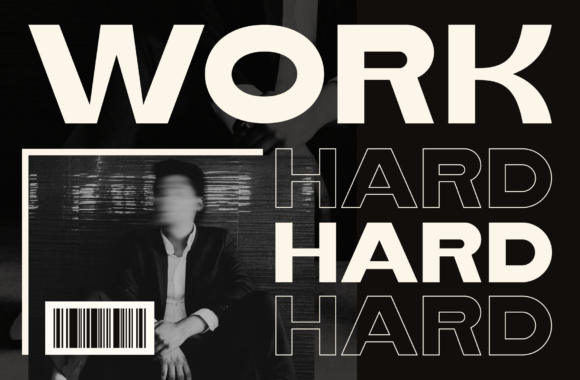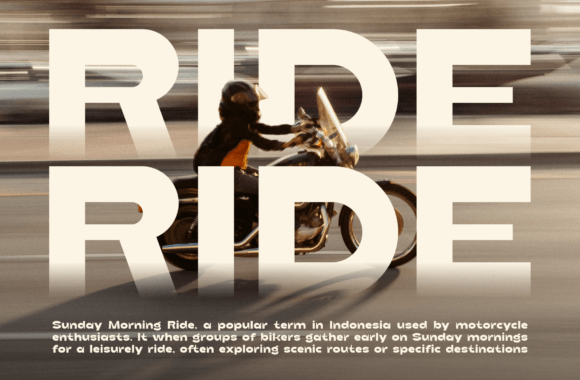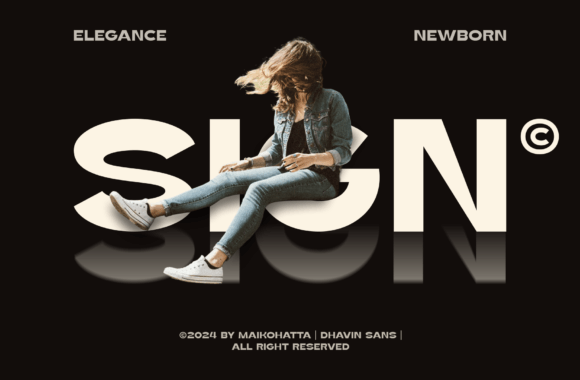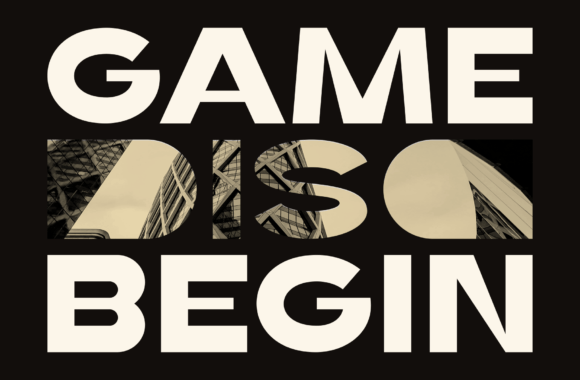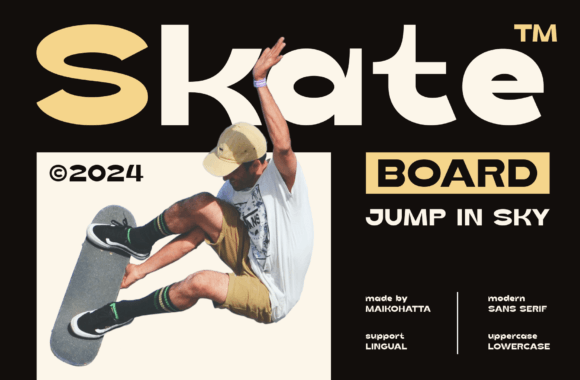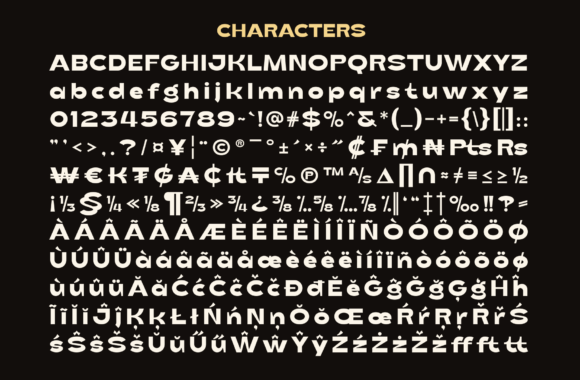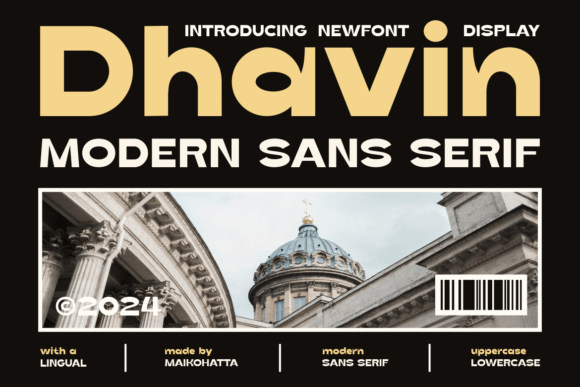
Introducing Dhavin Font: The Ultimate Modern Sans Serif for Graphic Design and Typography
In the world of graphic design and modern typography, the right font can make all the difference. A well-crafted font can elevate your design, convey your message with clarity, and leave a lasting impression on your audience. We’re excited to introduce our new product, Dhavin Font – a modern sans serif font that’s designed to provide a clean, professional, and contemporary look. In this article, we’ll explore the features, benefits, and uses of Dhavin Font, and why it’s a must-have for designers and crafters.
What is Dhavin Font?
Dhavin Font is a modern sans serif font that’s designed to be highly flexible and versatile. Its clean lines, simple shapes, and minimalist aesthetic make it an excellent choice for a wide range of design contexts, from digital media to print materials. Whether you’re designing a logo, brochure, website, or social media post, Dhavin Font is the perfect choice for creating a professional and contemporary look.
Key Features of Dhavin Font
So, what makes Dhavin Font stand out from other fonts? Here are some of its key features:
• Clean and Simple Design: Dhavin Font features a clean and simple design that’s easy to read and understand. Its minimalist aesthetic makes it perfect for designs that require a professional and contemporary look.
• Highly Legible: Dhavin Font is designed to be highly legible, even at small font sizes. This makes it ideal for use in body text, captions, and other applications where readability is crucial.
• Flexible and Versatile: Dhavin Font is a highly flexible font that can be used in a variety of design contexts, from digital media to print materials.
• Modern and Contemporary: Dhavin Font has a modern and contemporary aesthetic that’s perfect for designs that require a fresh and up-to-date look.
Benefits of Using Dhavin Font
So, why should you choose Dhavin Font for your design projects? Here are some of the benefits of using Dhavin Font:
• Enhance Your Brand’s Visual Identity: Dhavin Font can help you create a consistent visual identity for your brand. Its clean and professional design makes it perfect for use in logos, brochures, and other marketing materials.
• Improve Readability: Dhavin Font is designed to be highly legible, which means it can help improve readability in your designs. This is especially important for body text, captions, and other applications where readability is crucial.
• Save Time and Effort: Dhavin Font is a highly versatile font that can be used in a variety of design contexts. This means you can use it across multiple projects, saving you time and effort in the long run.
How to Use Dhavin Font
So, how can you use Dhavin Font in your design projects? Here are some ideas to get you started:
• Logos and Branding: Use Dhavin Font to create a clean and professional logo for your brand. Its modern and contemporary aesthetic makes it perfect for startups and businesses that want to look fresh and up-to-date.
• Print Materials: Use Dhavin Font in print materials such as brochures, flyers, and posters. Its clean and simple design makes it easy to read and understand, even at small font sizes.
• Digital Media: Use Dhavin Font in digital media such as websites, social media posts, and email marketing campaigns. Its modern and contemporary aesthetic makes it perfect for creating a professional and contemporary look.
In conclusion, Dhavin Font is a modern sans serif font that’s designed to provide a clean, professional, and contemporary look. Its highly legible design, flexibility, and versatility make it an excellent choice for a wide range of design contexts. Whether you’re a designer, crafter, or business owner, Dhavin Font is a must-have font that can help you create stunning designs that leave a lasting impression on your audience.